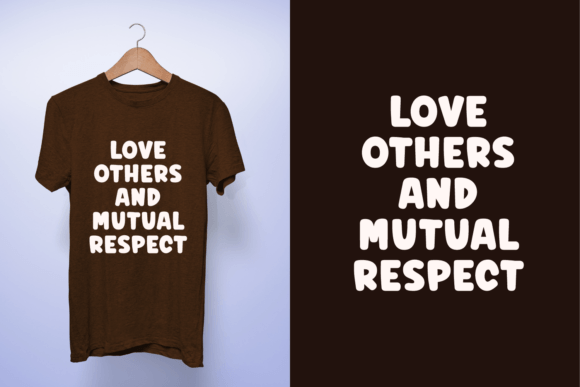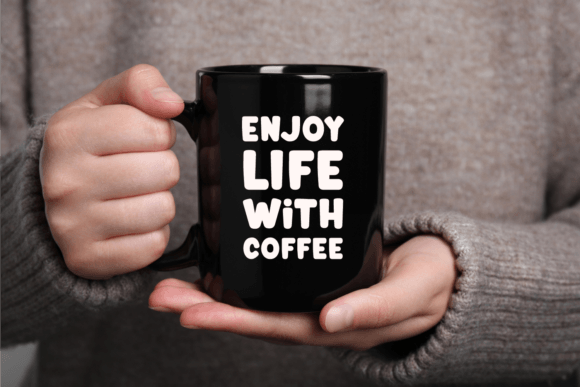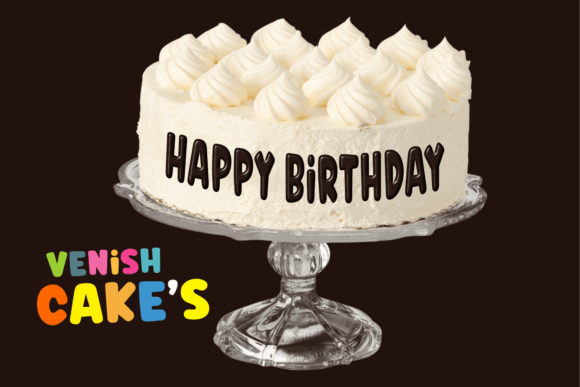
Introduction to I Like Choco Font
As a designer, there’s nothing quite like the thrill of discovering a new typeface that sparks creativity and elevates your projects. It’s a moment that can make all the difference between a good design and a great one. And that’s exactly what happened when I stumbled upon the ‘I Like Choco Font’. Its unique blend of clean lines and playful charm immediately caught my attention, and I knew I had to share it with fellow design enthusiasts.
This free download has been a game-changer for my creative projects, offering a high-quality design resource that’s perfect for everything from clothing designs to book covers. With its transparent background and versatile style, it’s an excellent choice for crafters and designers looking to add a touch of sophistication to their work.
Whether you’re a seasoned pro or just starting out, the ‘I Like Choco Font’ is an invaluable asset that’s sure to leave an everlasting impression. So why not give it a try and see the difference it can make in your next creative project?
Key Features of I Like Choco Font
- High-quality design resource ideal for creative projects and personal use
- Comes in a single weight, perfect for projects requiring a consistent font style
- Unique, handcrafted design that adds a touch of personality to any creative project
Honest Review: I Like Choco Font
As a designer, I’m always on the lookout for high-quality fonts that can elevate my creative projects. I recently came across I Like Choco Font, and I’m excited to share my thoughts on this design resource.
Here’s what works well:
- ✨ High-quality design: I Like Choco Font has a unique and playful style that’s perfect for adding a touch of whimsy to my designs.
- ⚠️ Limited character set: I Like Choco Font only includes a limited set of characters, which may not be sufficient for more complex design projects.
- ⚠️ Not suitable for formal designs: Due to its playful style, I Like Choco Font may not be the best choice for formal or professional designs.
Overall, I Like Choco Font is a great addition to any designer’s toolkit. While it may have some limitations, its high-quality design and free download make it a valuable resource for creative projects. I’d definitely recommend giving it a try!
Tips for Getting the Most Out of I Like Choco Font
To get the most out of I Like Choco Font, experiment with different font sizes, colors, and styles to create unique and visually appealing designs. You can also combine the font with other design elements to create a cohesive look.
I Like Choco Font is suitable for a variety of creative projects, including logo design, branding, and marketing materials. Its unique and high-quality design makes it an ideal choice for designers looking to add a touch of personality to their work.